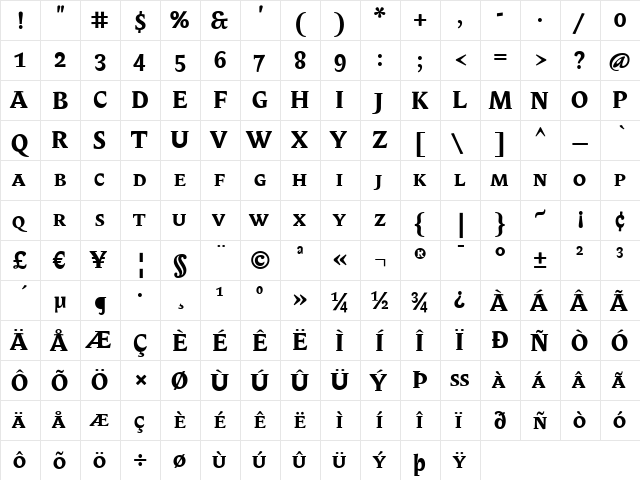
BiblonCaps Bold
Design Context for BiblonCaps Typeface
BiblonCaps offers clean, dependable letterforms without strong stylistic allegiance, making it a practical choice for designers who need flexibility. The heavy weight commands attention and anchors typographic hierarchies.